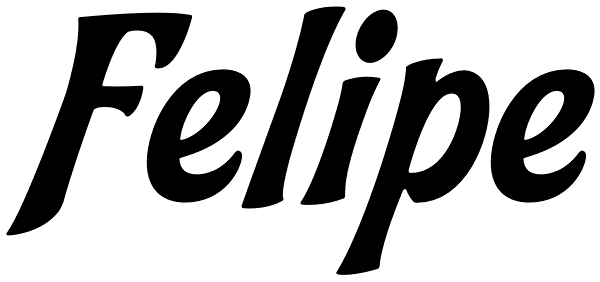
Felipe
As a follow-up to his popular Chocolate font, Angel Koziupa softens his brush again to produce Felipe, a font made in the memory of his brother. As packaging-friendly and versatile as any Koziupa font, Felipe contains fresh perspectives on old...